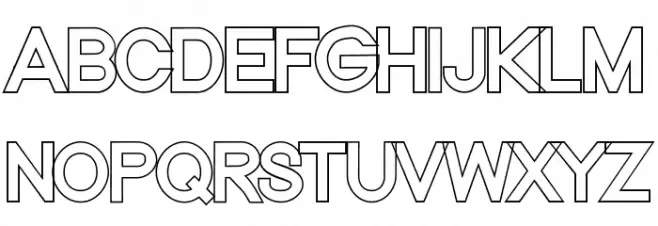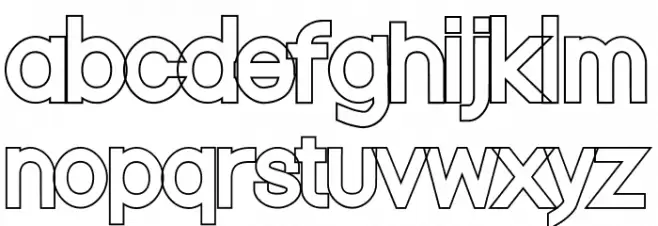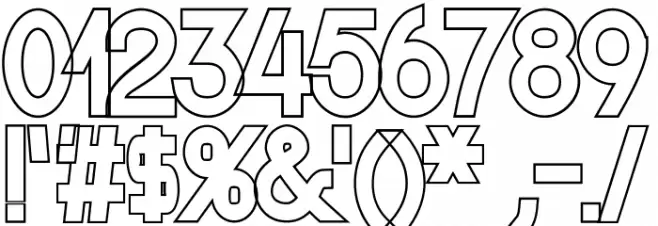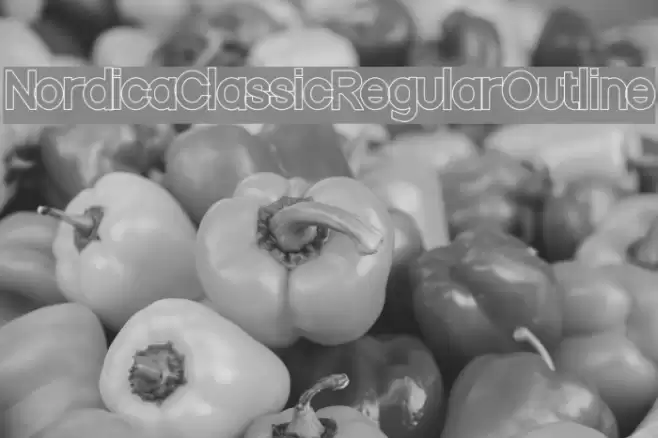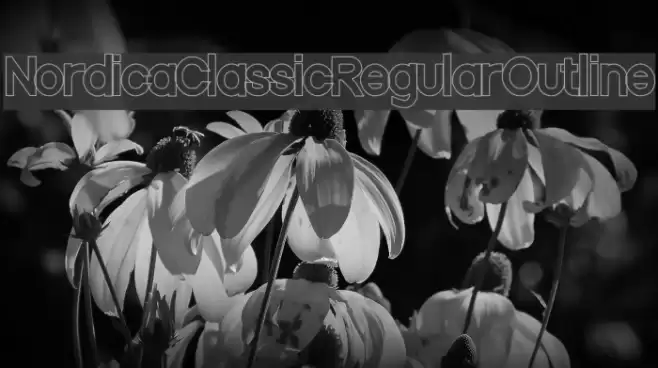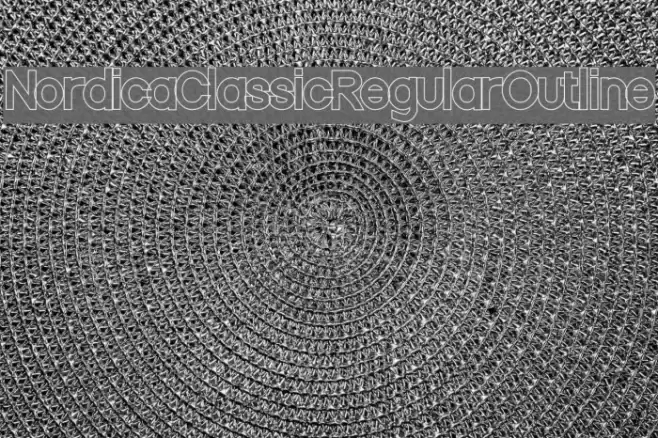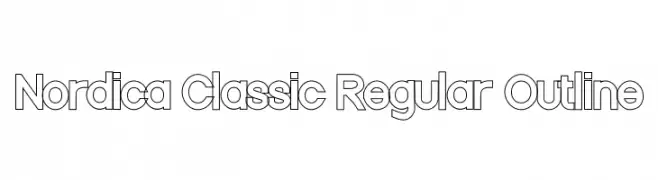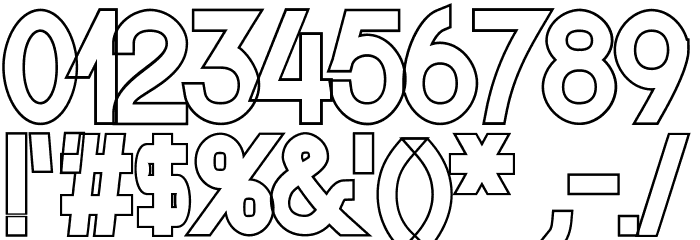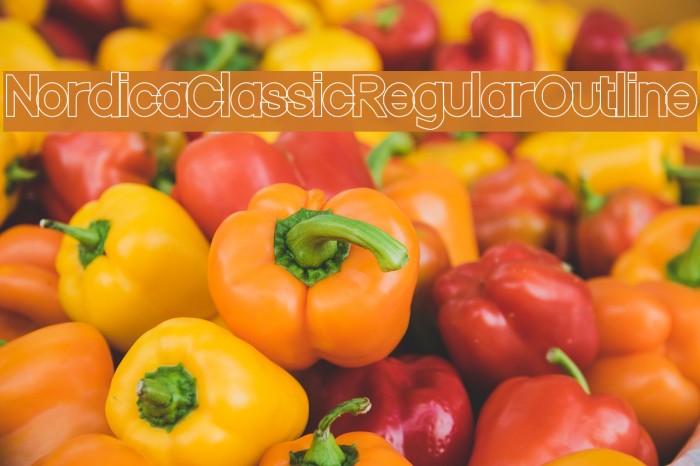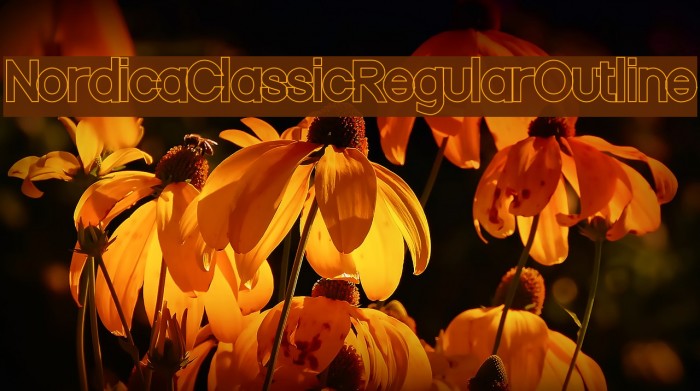
Nordica Classic Regular Outline
This font features a clean and modern outline style, characterized by its geometric and uniform letterforms. Each character is crafted with precision, maintaining a consistent stroke width throughout, which gives it a balanced and harmonious appearance. The uppercase and lowercase letters are well-proportioned, making it versatile for various design applications. The numerals and special characters are designed to complement the alphabet, ensuring a cohesive look across all text elements. Its outline nature adds a unique touch, making it stand out in both digital and print media.
A modern, geometric outline font with consistent stroke width.
- Proposed Projects: Ideal for branding, logos, headlines, and poster designs where a contemporary and distinctive look is desired.
- Use Case: Headlines, Logos, Posters